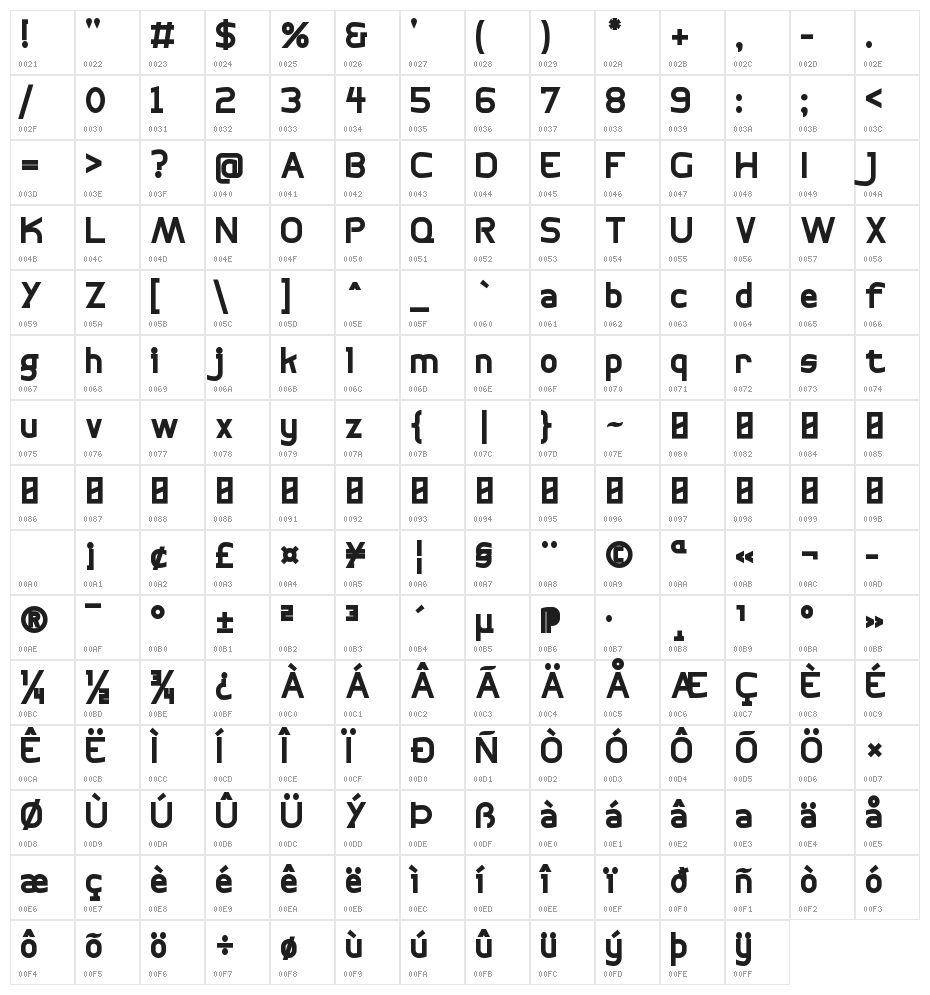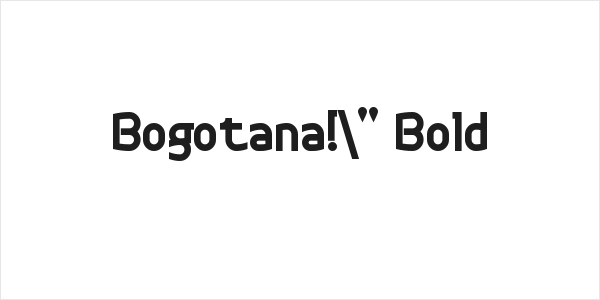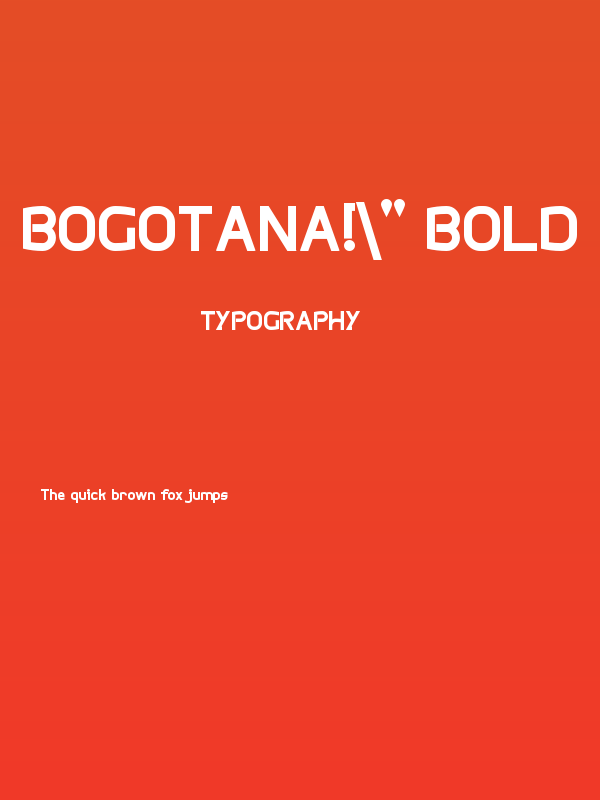
Bogotana!" Bold Font
Bogotana!" Bold Description
This font exhibits a bold and modern design with a strong geometric influence. The characters are well-defined with a consistent stroke width, providing a clean and robust appearance. The uppercase letters are slightly condensed, giving a compact and efficient look, while the lowercase letters maintain a uniform height that complements the overall structure. The numerals are clear and legible, designed to match the boldness of the alphabetic characters. Special characters are crafted with the same attention to detail, ensuring they integrate seamlessly with the rest of the font. This font's boldness and clarity make it suitable for impactful designs.